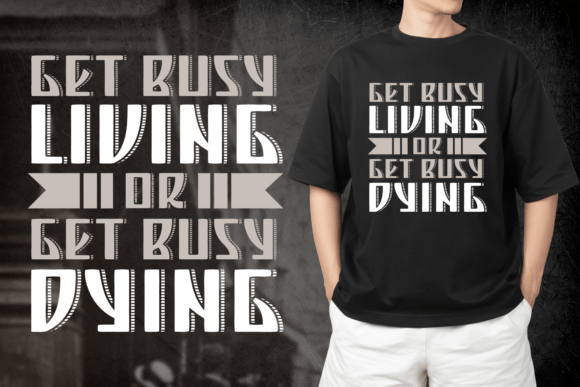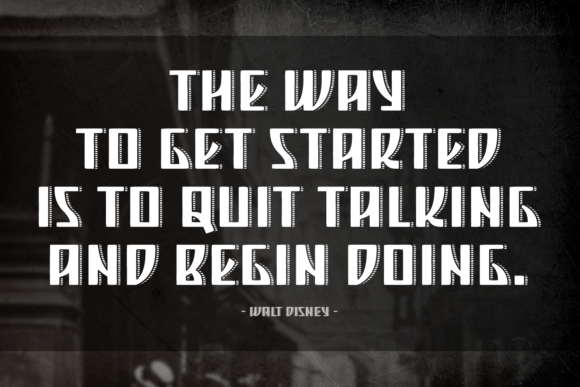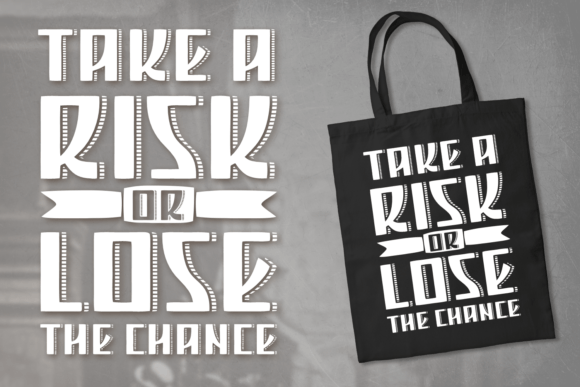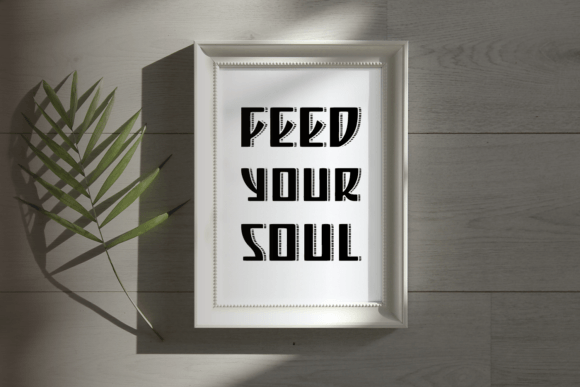
Introduction to Retro Ketro Font Font
Fonts play a crucial role in design, and the Retro Ketro Font font is a typeface that brings both character and versatility to any project. Whether you’re working on a branding project, a website, or a print design, the Retro Ketro Font font offers a unique style that can elevate your work.
Retro Ketro is a stylish and nostalgic display font that evokes the spirit of the past.
With bold, geometric letterforms and a playful yet timeless design, itβs the perfect choice for adding a touch of vintage flair to your projects Whether youβre creating posters, signage, or branding materials, Retro Ketro will transport your audience back to a bygone era with its unique, eye-catching charm.
Key Features of Retro Ketro Font Font
Why Choose Retro Ketro Font Font?
The Retro Ketro Font font is more than just a typeface β it’s a design tool that helps you communicate your message with style and clarity. Its unique character set and versatile design make it suitable for a wide range of applications, from elegant invitations to bold headlines.
With its carefully crafted letterforms and balanced proportions, the Retro Ketro Font font ensures readability and visual appeal across all mediums.
What makes Retro Ketro Font font special?
The Retro Ketro Font font stands out with its unique design, exceptional readability, and versatility across various design applications.